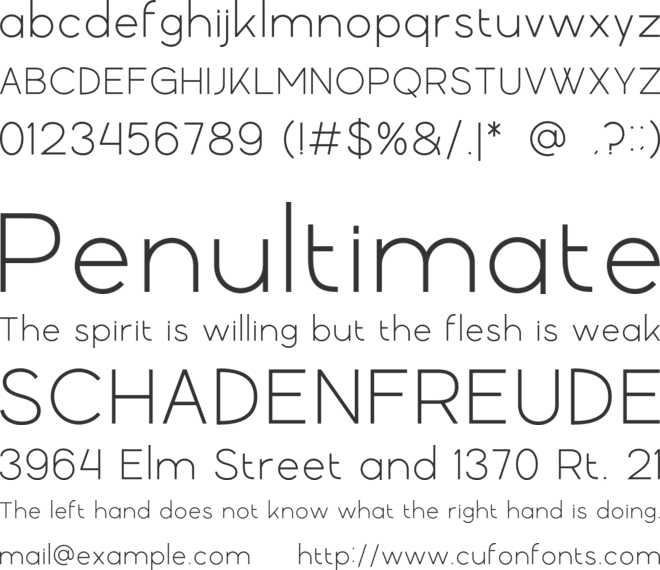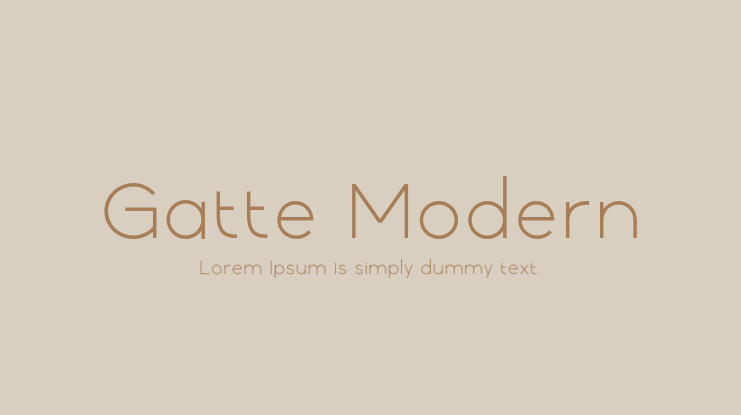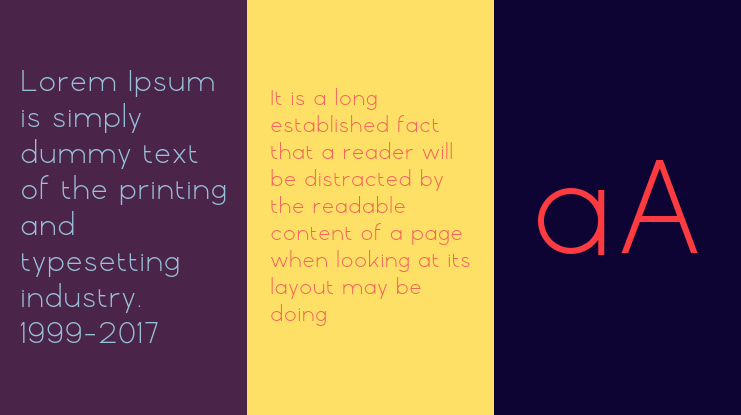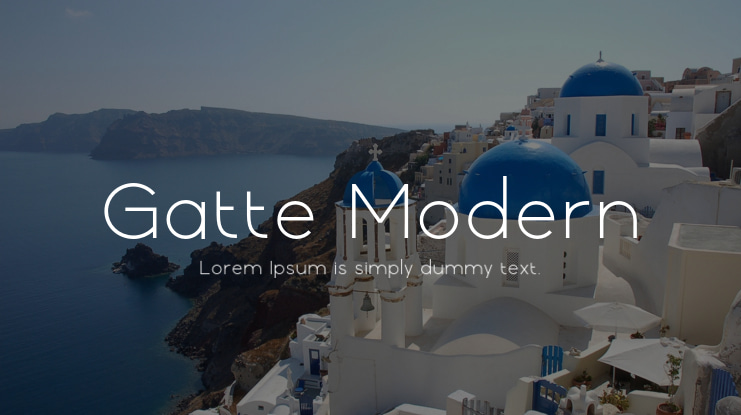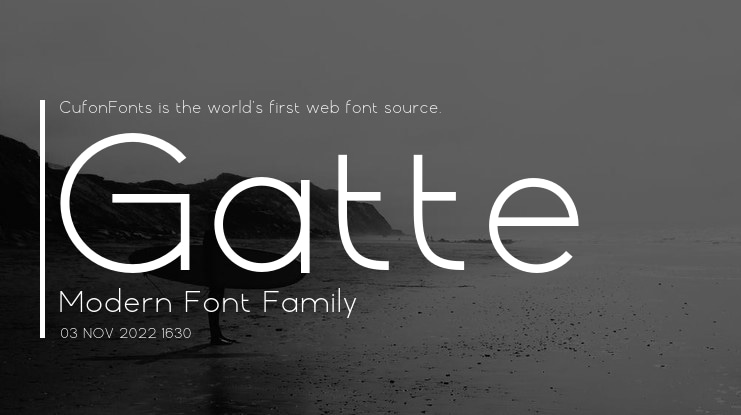
Gatte Modern Font Family
Gatte Modern is a sans-serif font available in 5 styles. Gatte Modern is created with simplicity and minimalism in mind, resulting in an elegant appearance. This typography is designed to be effective in larger sizes.